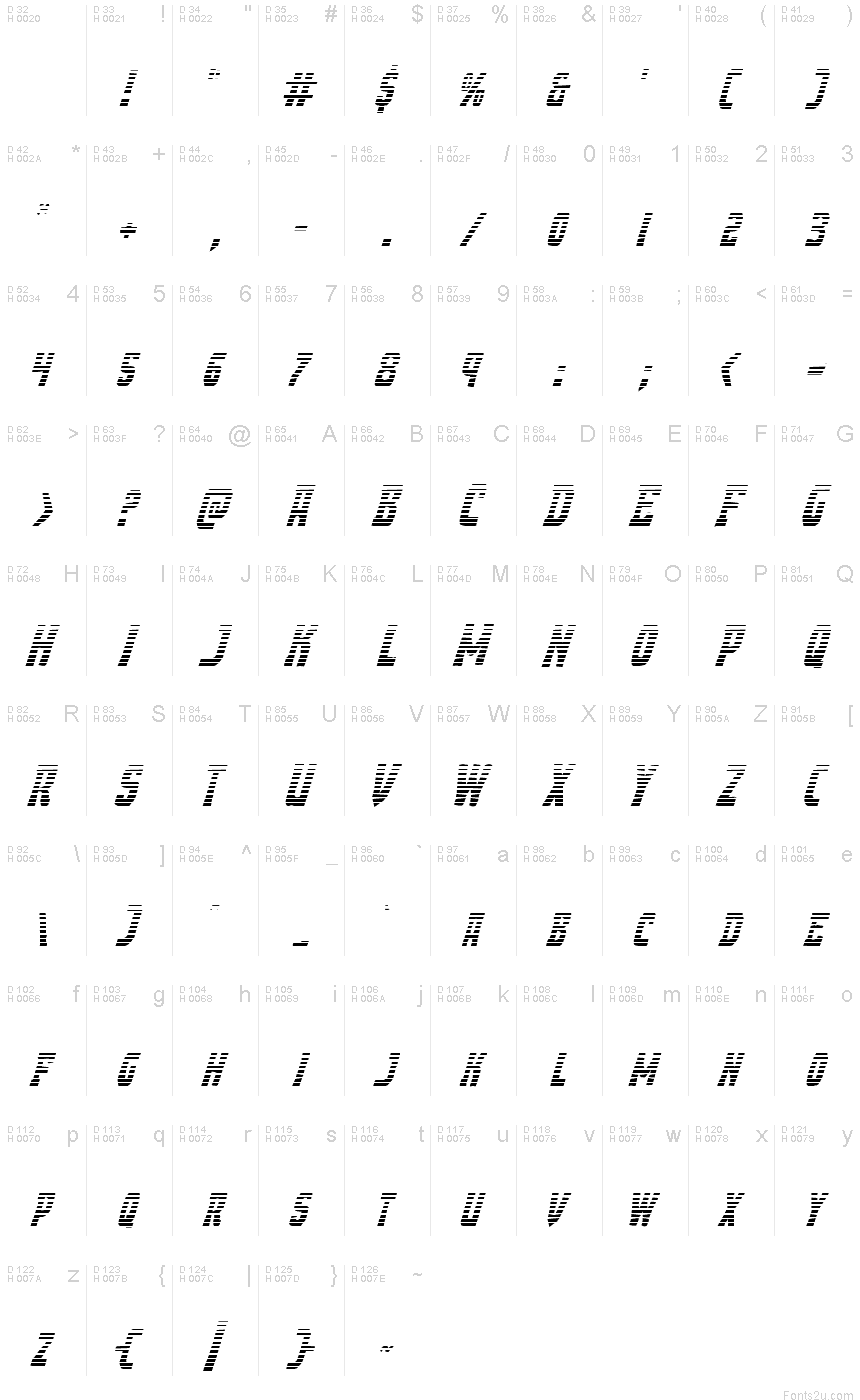
Demon Priest Gradient Italic
Demon Priest 家族 组成 12 字体
Demon Priest is a font dedicated insppired by the clergy of the Darkside! Each version comes with a complete Latin character set and the Euro.